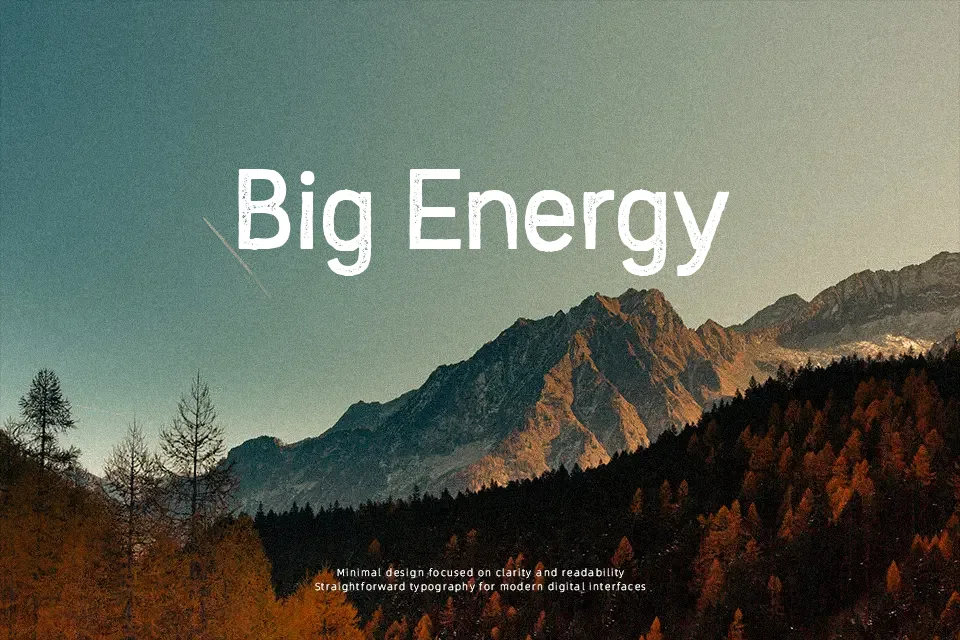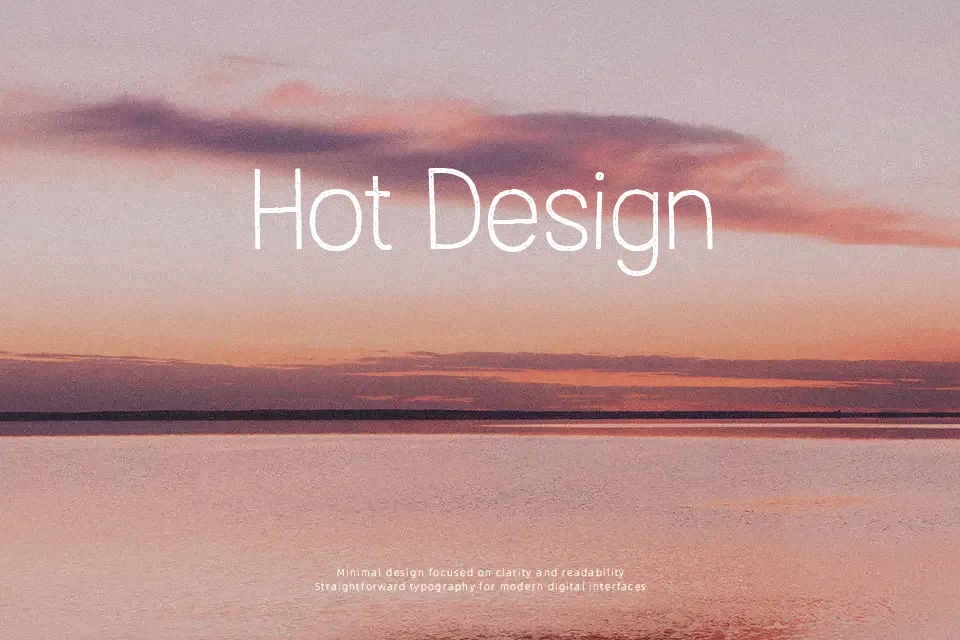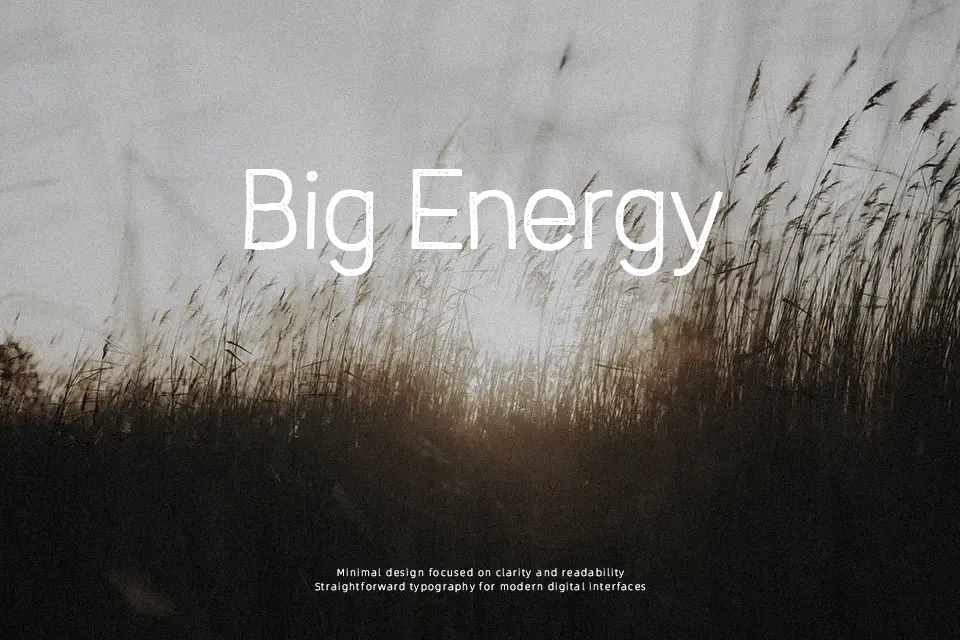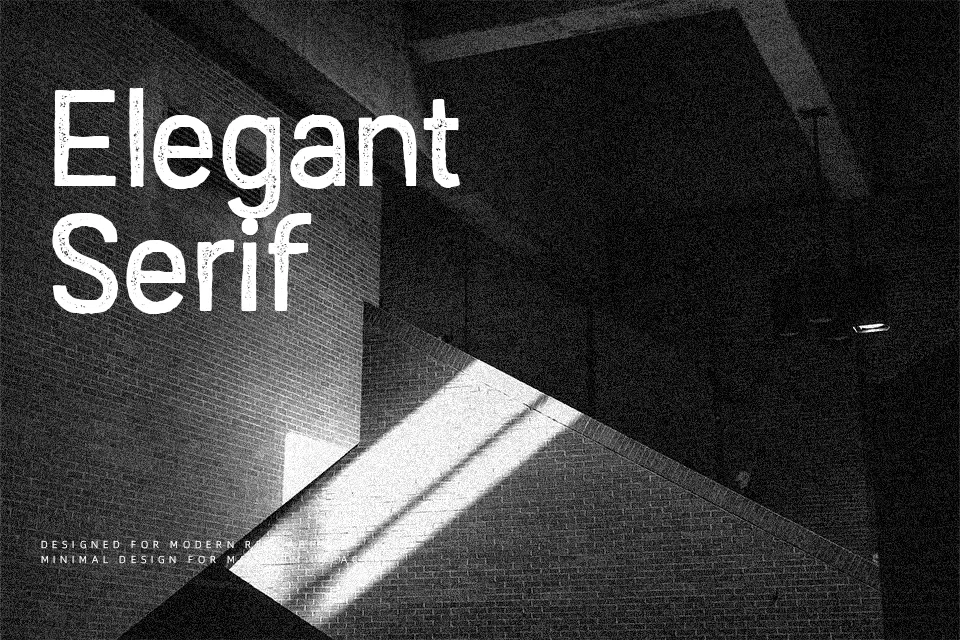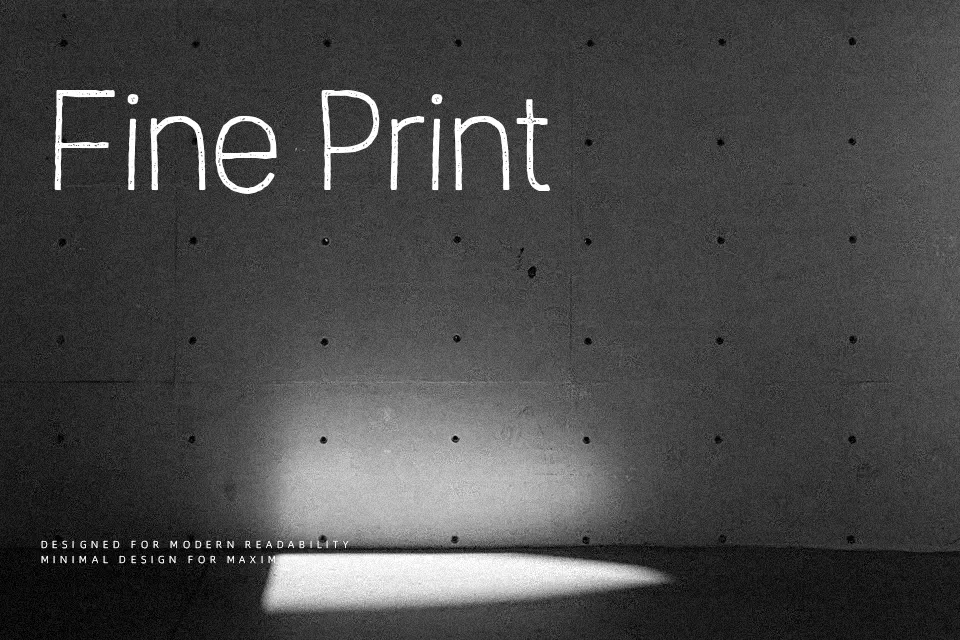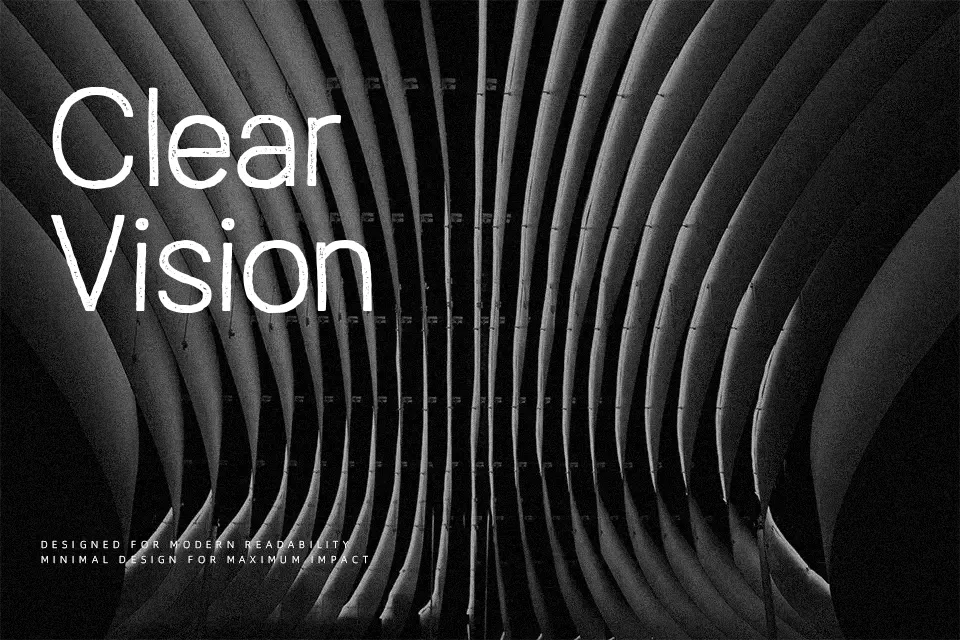
Austral Sans Stamp Font
Designed by Antipixel
The Stamp variant of Austral Sans carries a distinctive low-ink print effect, where strokes appear partially faded and edges break apart unevenly — this isn’t ornamental distress applied as an overlay, it’s baked into the glyph structure itself. The letterforms are monolinear in skeleton but gain personality from bent outlines and contextual alternates that rotate through three alphabet sets, giving longer settings a more natural, hand-produced feel. It fits well in vintage branding mock-ups, craft packaging, and travel-themed editorial design where roughness reads as authenticity. That said, the ink-dropout effect becomes visually chaotic at small sizes, making it a poor fit for body text or anything below 24pt. The license on the free version covers personal use only — commercial projects require a separate purchase from Antipixel.
Best For:- Vintage or retro-style poster headlines
– Craft beer, coffee, or artisan food packaging labels
– Travel and outdoor brand identity design
– Handmade or DIY product logo treatments
Not Ideal For:- Body text or small-size usage (eroded glyphs lose legibility)
– Corporate or formal business documents
– Digital UI text where clarity is critical
Perfect for advertising, branding, and headline, with a bold and display style.